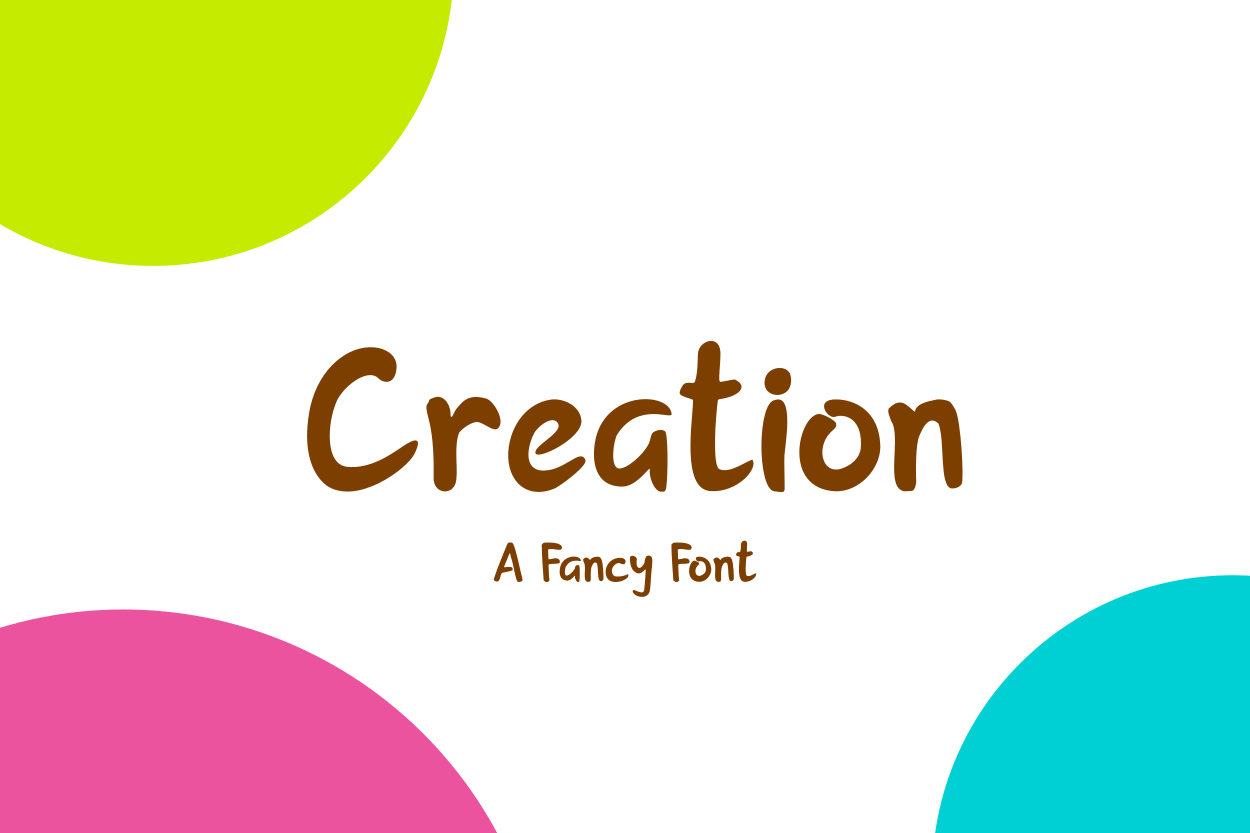
Creation | A Fancy font
Proudly introducing Creation a fancy font that carefully crafted by floral studio team, this font is designed for all graphic designer needs such as logo design, text, display, digital and print ad, comic, video tittle and more.